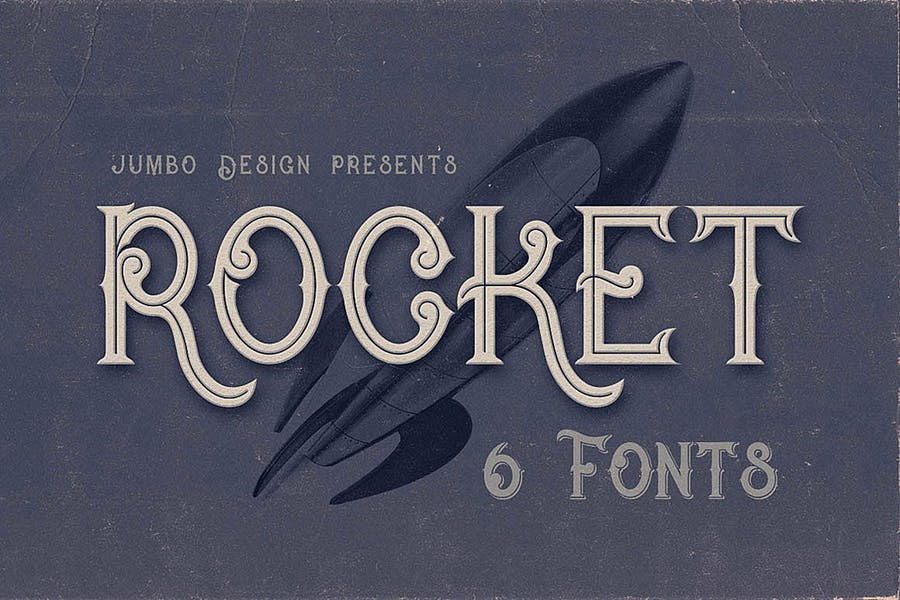
Rocket - Vintage Style Font
Rocket - Vintage Style Font is perfect for retro space museums, vintage aviation brands, classic sci-fi entertainment, nostalgic aerospace companies, space-age themed restaurants, retro-futuristic design studios, vintage rocket memorabilia, classic space exploration exhibits, atomic age lifestyle brands, and authentic mid-century space culture organizations.
Rocket - Vintage Style Font creates excitement because it embodies the optimistic ambition and retro-futuristic vision of the golden age of space exploration with its streamlined letterforms and rocket-inspired character design. The font's aerodynamic curves and space-age aesthetic instantly convey pioneering spirit and vintage innovation, making any brand appear visionary and authentically connected to space heritage. Its carefully crafted rocket details and futuristic character create an immediate sense of space adventure that captivates audiences seeking space experiences, vintage quality, and products that celebrate the transformative beauty of space exploration and retro-futuristic design.
The Rocket - Vintage Style Font family includes multiple weights and styles: Regular, Bold, Light, Medium, Italic, Condensed, Extended, Aerodynamic, Retro, and Space-age versions. Each variant maintains the font's signature rocket character while offering different levels of space styling and vintage authenticity suitable for various aerospace and retro-futuristic applications.
This soaring typeface brings the authentic spirit of vintage space exploration into contemporary design with remarkable vision and space-age appeal. Rocket - Vintage Style Font Free Download provides space heritage brands and retro-futuristic organizations with access to premium rocket-inspired typography that embodies the essence of space pioneering and aerospace excellence. The font's streamlined design and space authenticity make it ideal for businesses seeking to establish meaningful connections with space enthusiasts and vintage culture lovers who appreciate aerospace heritage, space exploration, and the transformative power of retro-futuristic vision that inspired generations to reach for the stars. Whether you're creating branding for space museums, designing materials for aerospace organizations, developing communications for vintage space venues, or producing content for retro-futuristic entertainment, this font delivers the authentic space-age atmosphere that resonates with audiences seeking genuine space experiences, vintage quality, and the pioneering spirit that comes from embracing authentic space exploration heritage. Its versatile design ensures outstanding performance across both vintage printed materials and sophisticated digital space platforms while maintaining the character of authentic space-age typography. The font excels in applications requiring aerospace credibility and space appeal. Space heritage professionals appreciate its ability to convey rocket authenticity while remaining highly functional for various aerospace communications and space promotional materials. The comprehensive character set includes space symbols and extensive international language support, making it perfect for global aerospace brands and international space organizations seeking to communicate authentic space culture, aerospace innovation, and vintage space excellence to diverse worldwide audiences who embrace space exploration, appreciate retro-futuristic design, and value the transformative power of genuine space heritage that preserves the pioneering spirit through space education, aerospace innovation, and the timeless vision of space exploration that continues to inspire humanity's greatest adventures beyond Earth's atmosphere through the enduring legacy of vintage space culture.